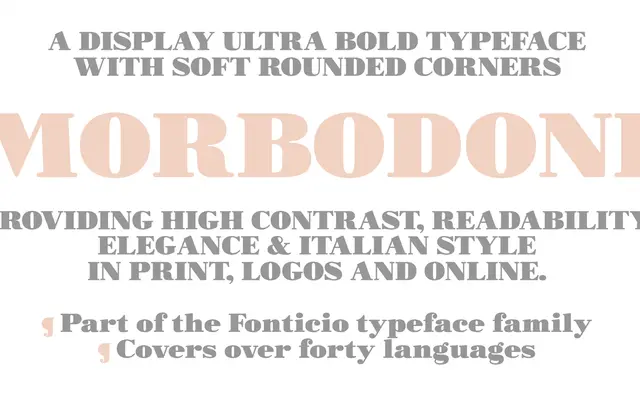
Morbodoni
A softened reworking of the ultrafat Bodoni tradition, with rounded corners and reduced contrast for better screen rendering.
Designed by Cosimo Lorenzo Pancini and Francesco Canovaro in 2016, Morbodoni takes the extreme weight of the fat face Bodoni genre and tempers it with rounded terminals and slightly heavier serifs. The result lowers the stroke contrast compared to a conventional ultrafat Bodoni, making it more legible at display sizes on screen. Part of the Fonticio Typeface Family, it covers 197 languages across Latin and Greek scripts.
Morbodoni is derived from the ultrafat Bodoni tradition, a display serif category characterised by extreme stroke contrast. Its rounded corners and softened serifs place it firmly in the fat face display subcategory.